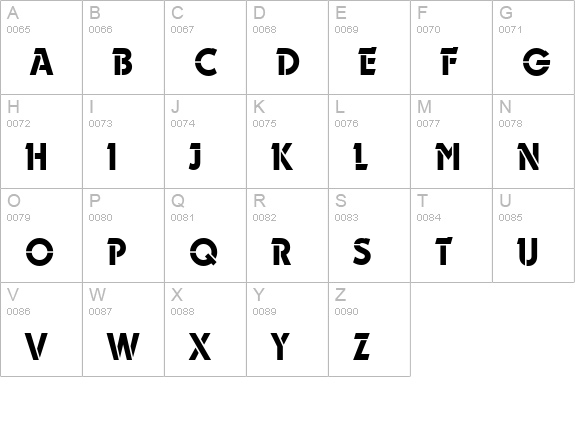
Durango-Alt-Medium-Regular is a balanced, medium-weight variant in the Durango typeface family \xE2\x80\x94 well suited to sub-headlines, navigation, and balanced editorial work.
Durango-Alt-Medium-Regular is a versatile and stylish font that exudes a sense of modern sophistication. With its clean lines and balanced proportions, this font is perfect for a wide range of design projects, from logos to branding materials to web design. The bold yet sleek appearance of Durango-Alt-Medium-Regular makes it a standout choice for anyone looking to make a statement with their typography. The best part? Durango-Alt-Medium-Regular is available for free download at FontsMarket.com. This means you can easily access this high-quality font without breaking the bank. Whether you're a seasoned designer or just starting out, Durango-Alt-Medium-Regular is sure to elevate your projects with its professional and distinctive look. Download it today and take your designs to the next level!